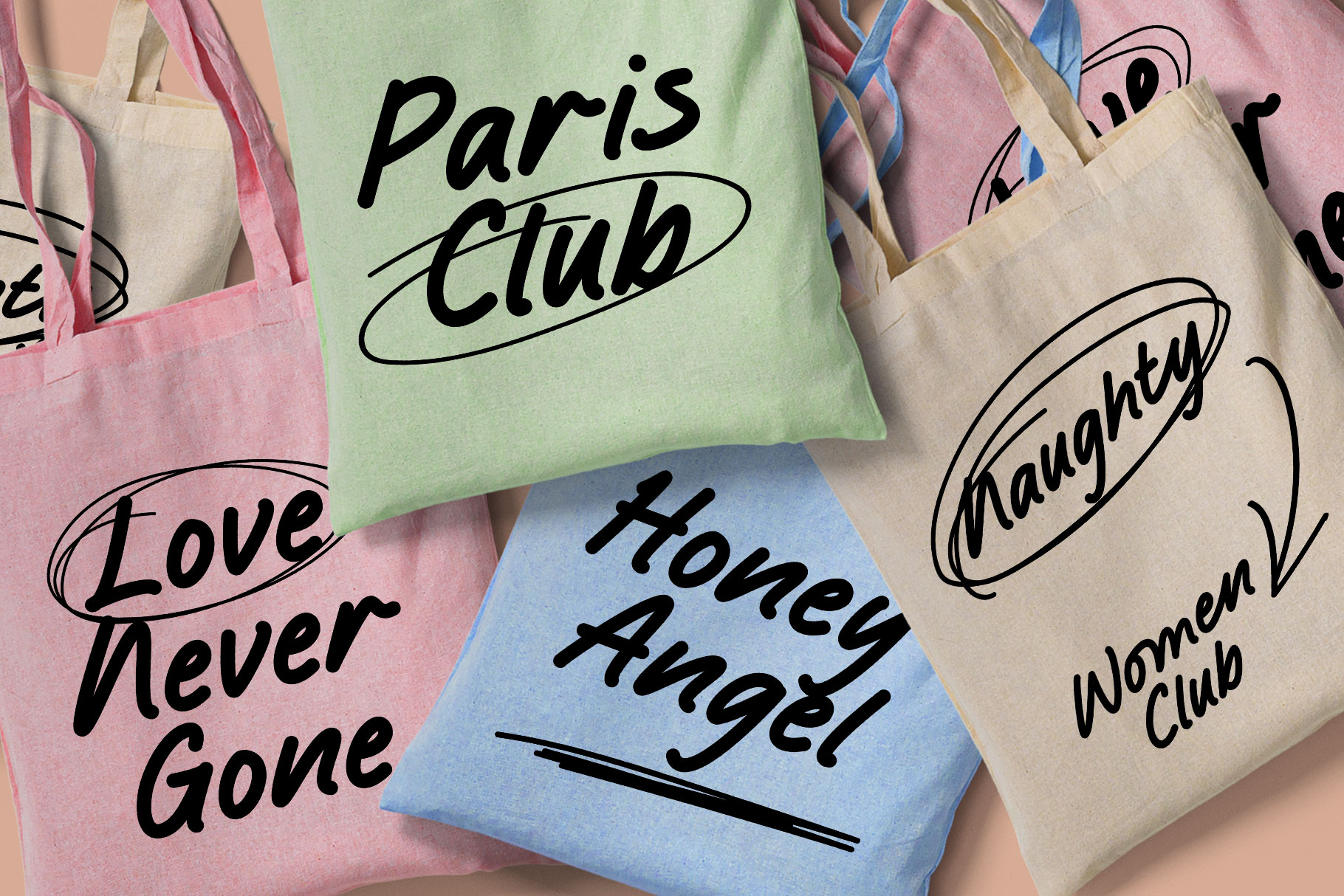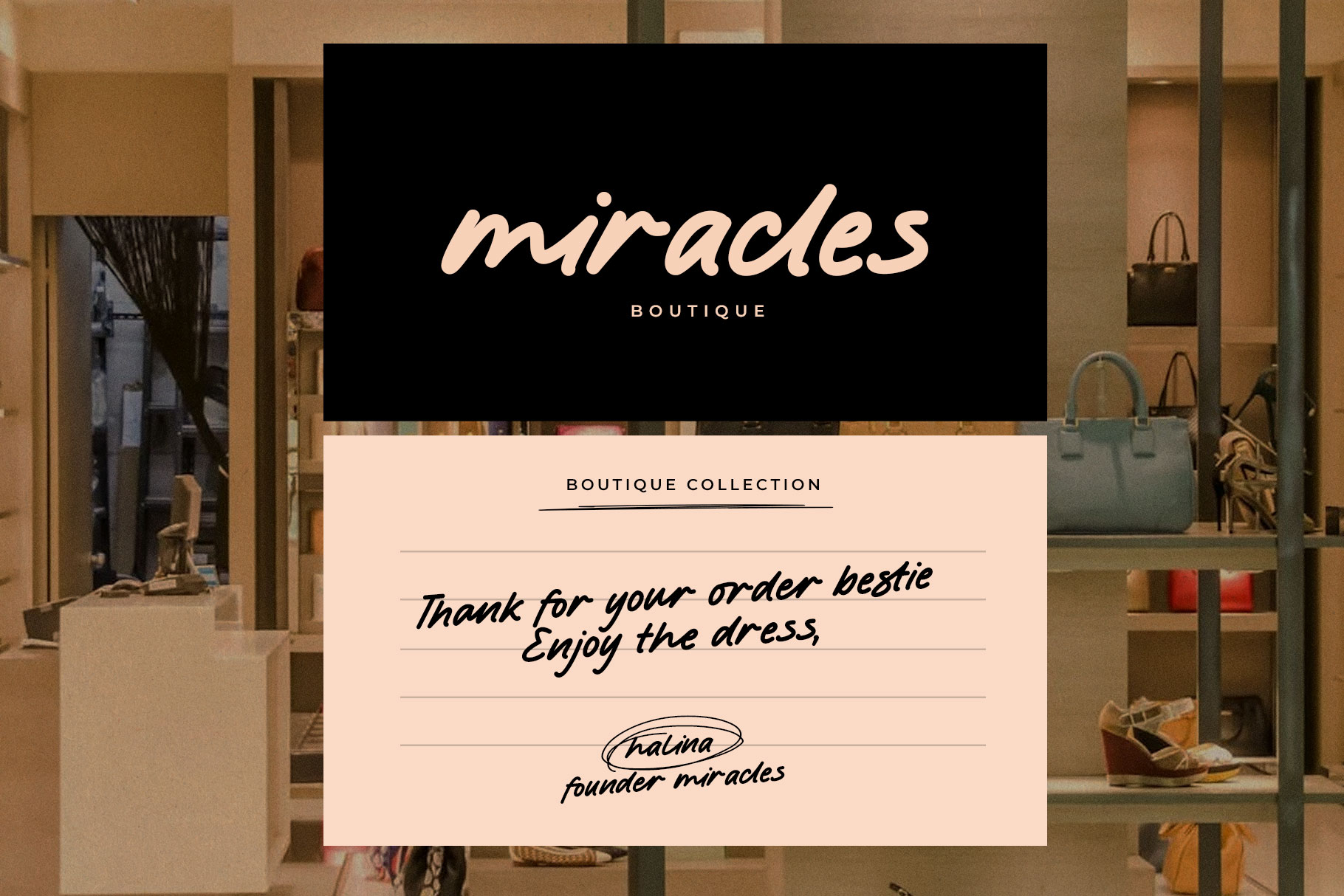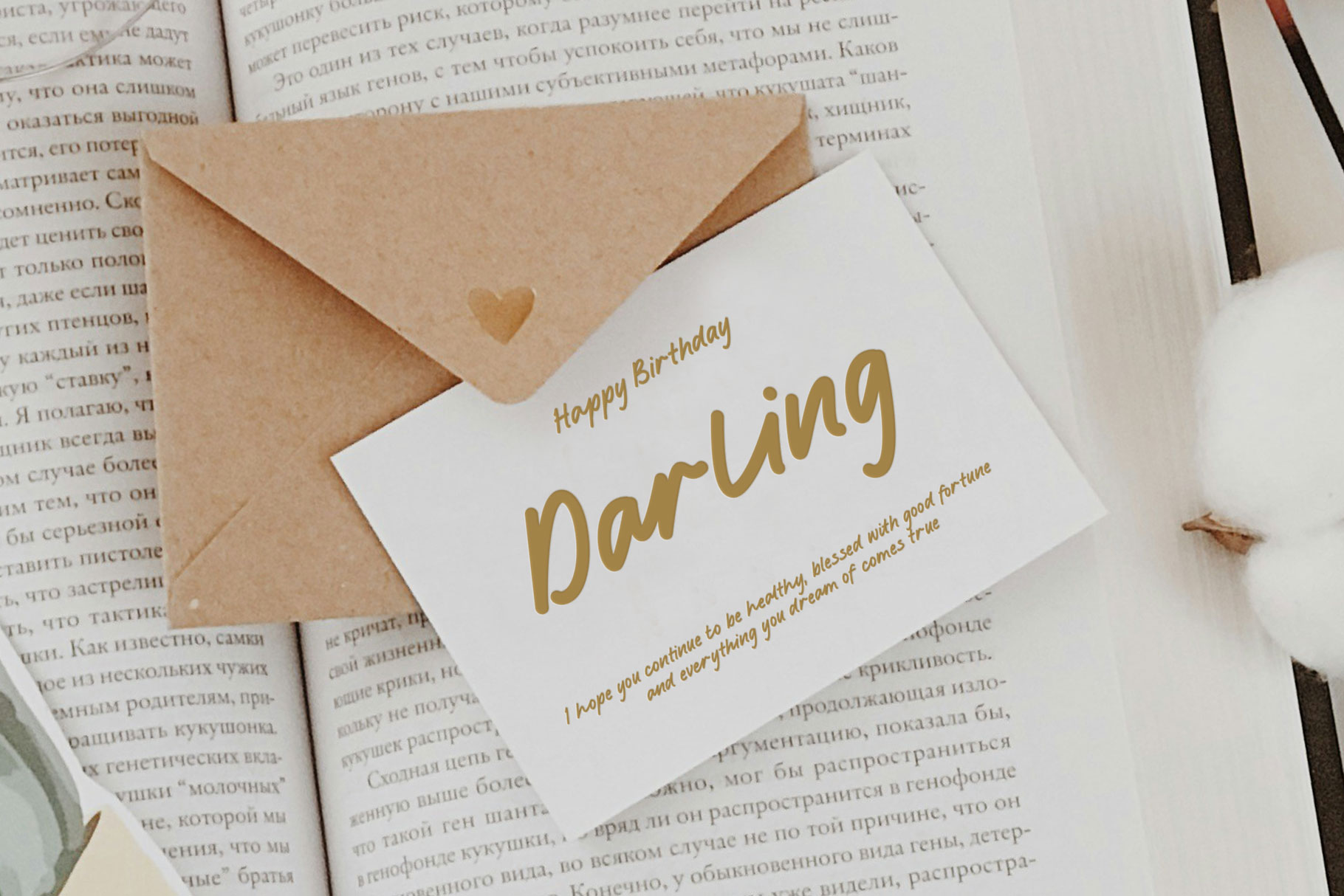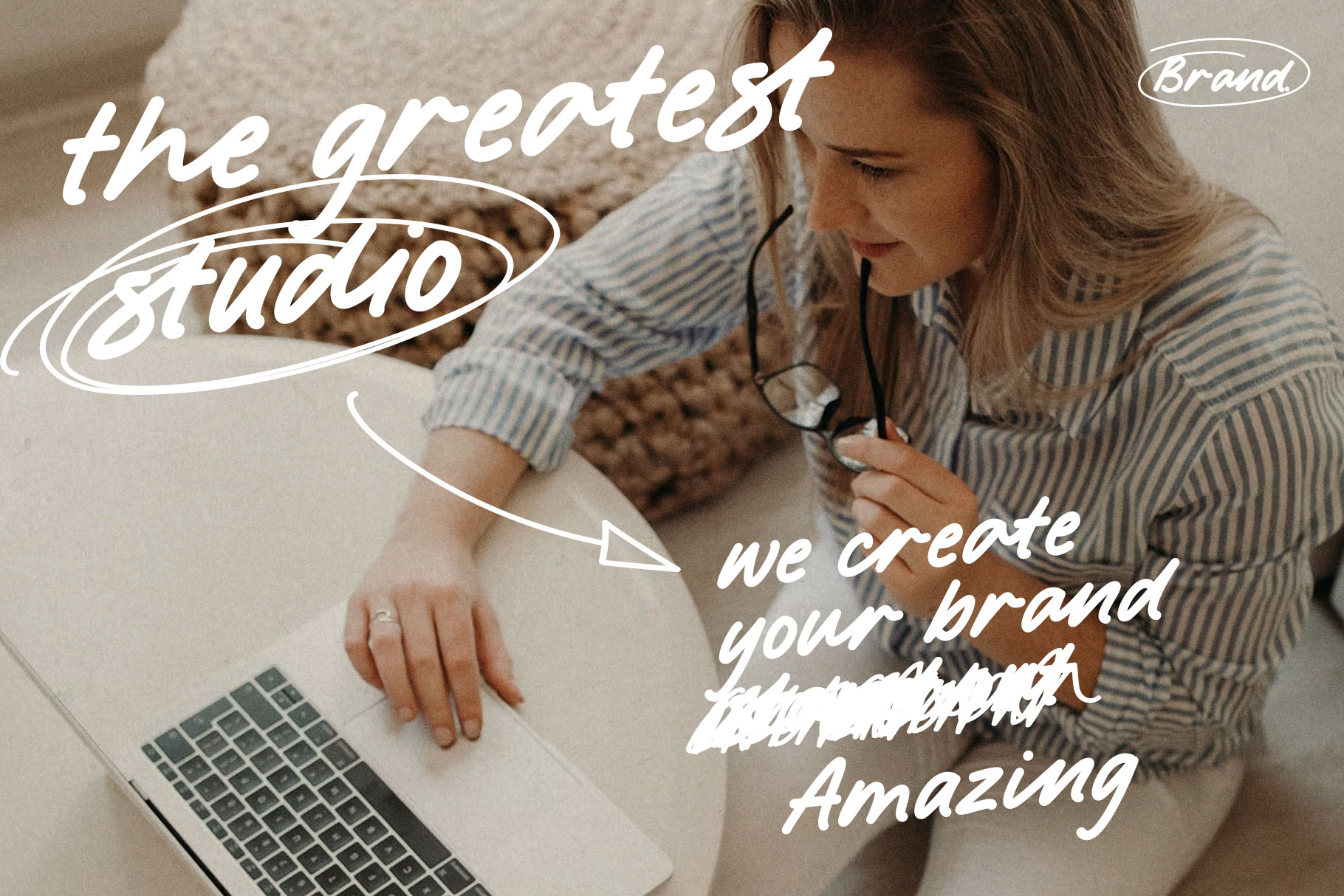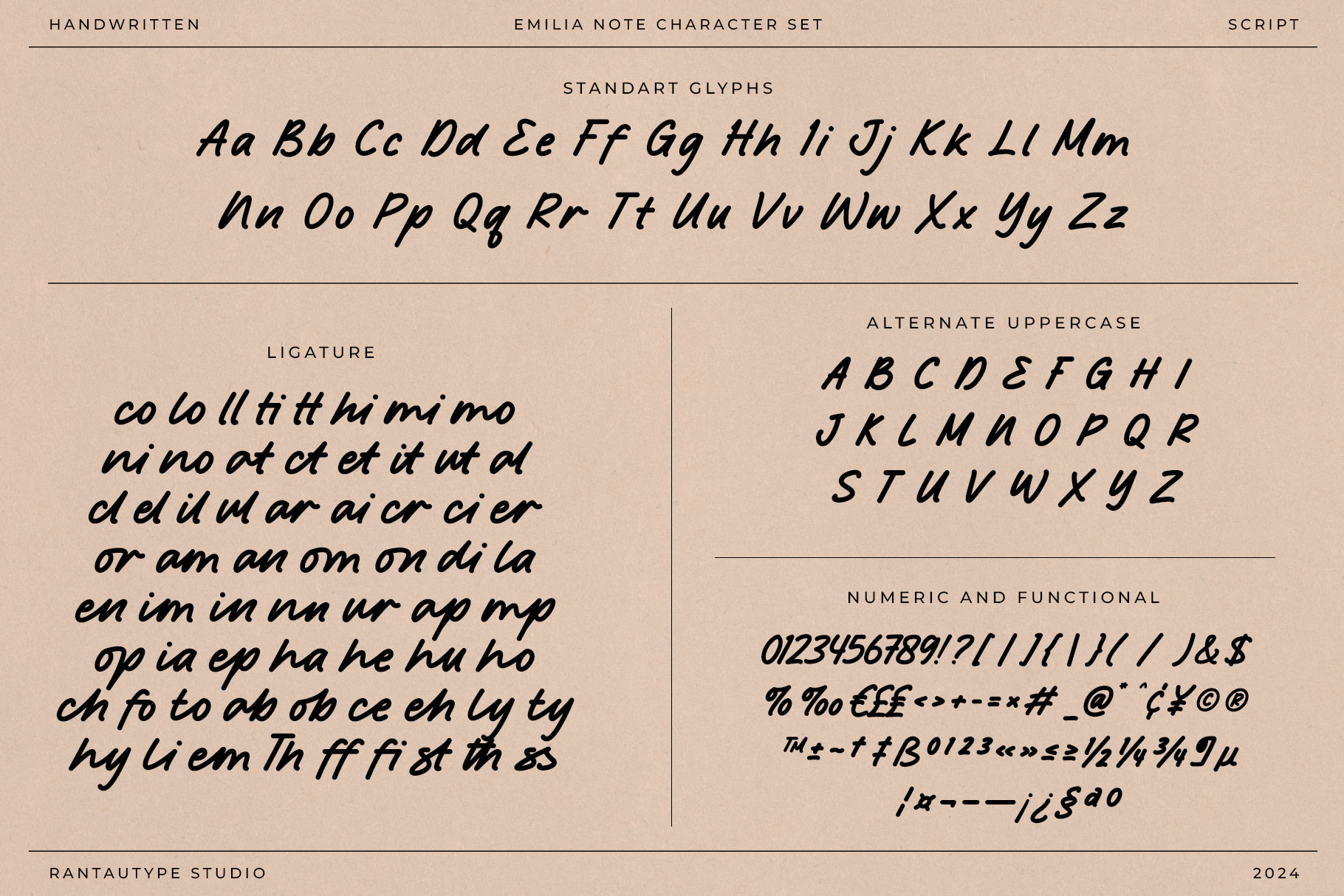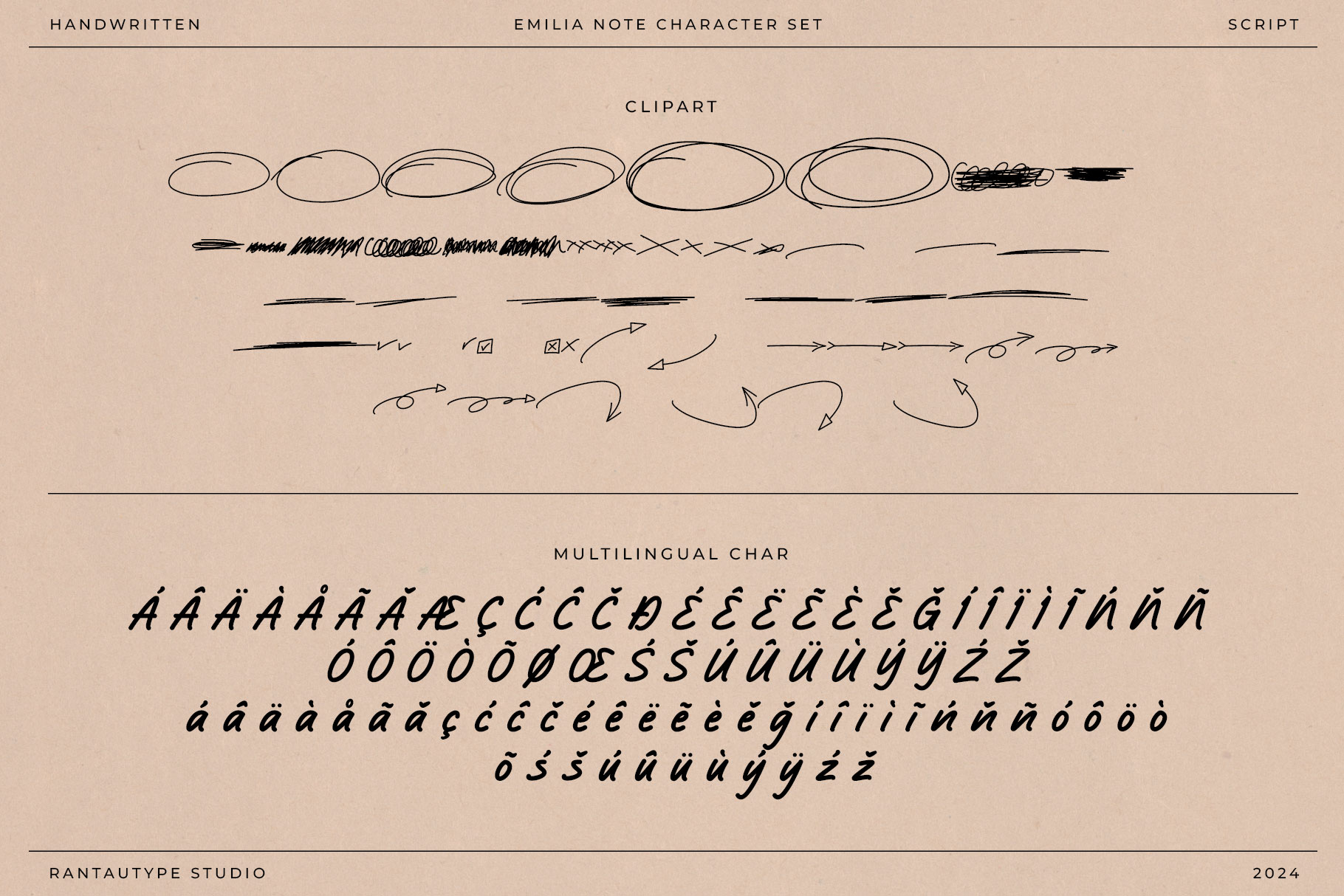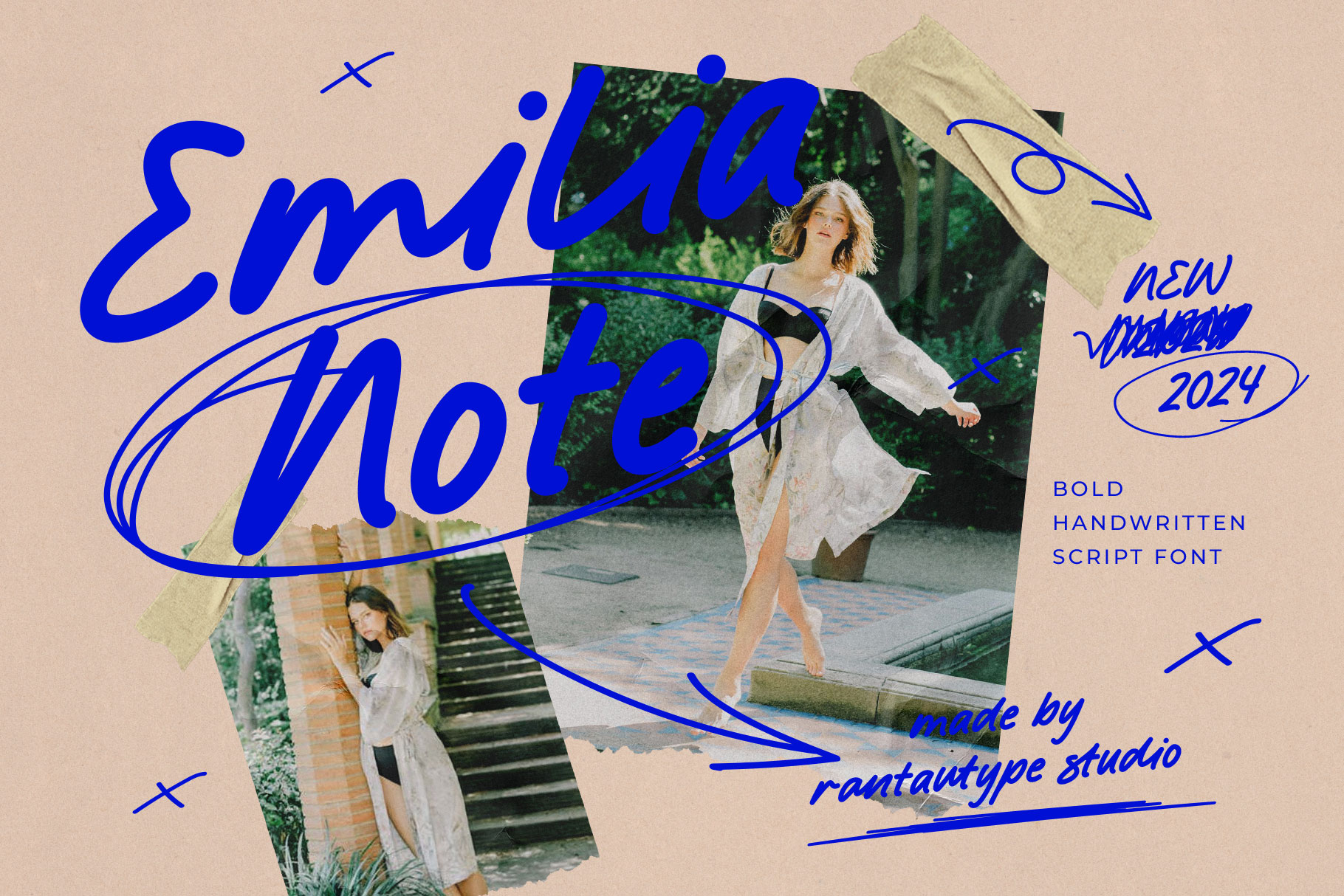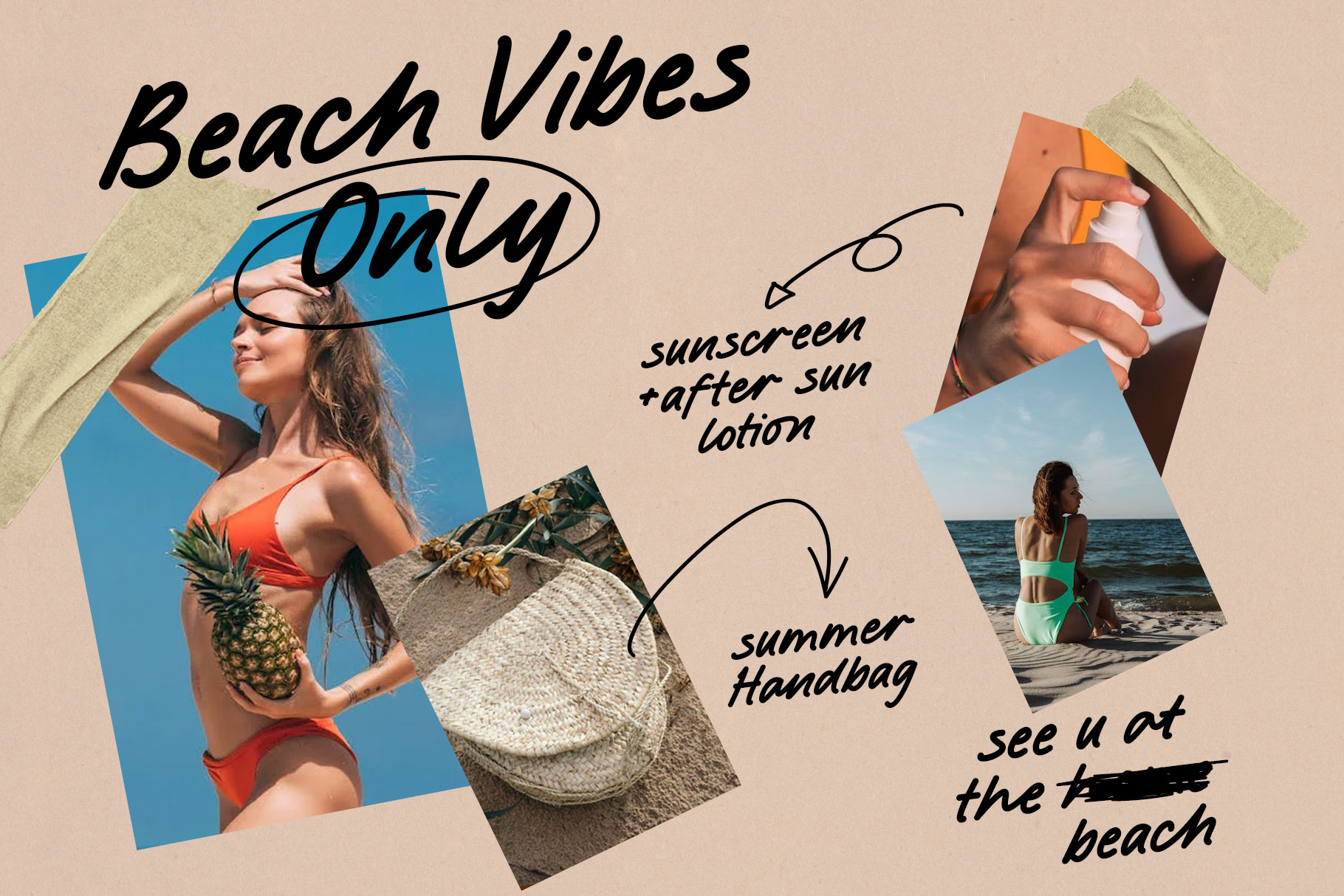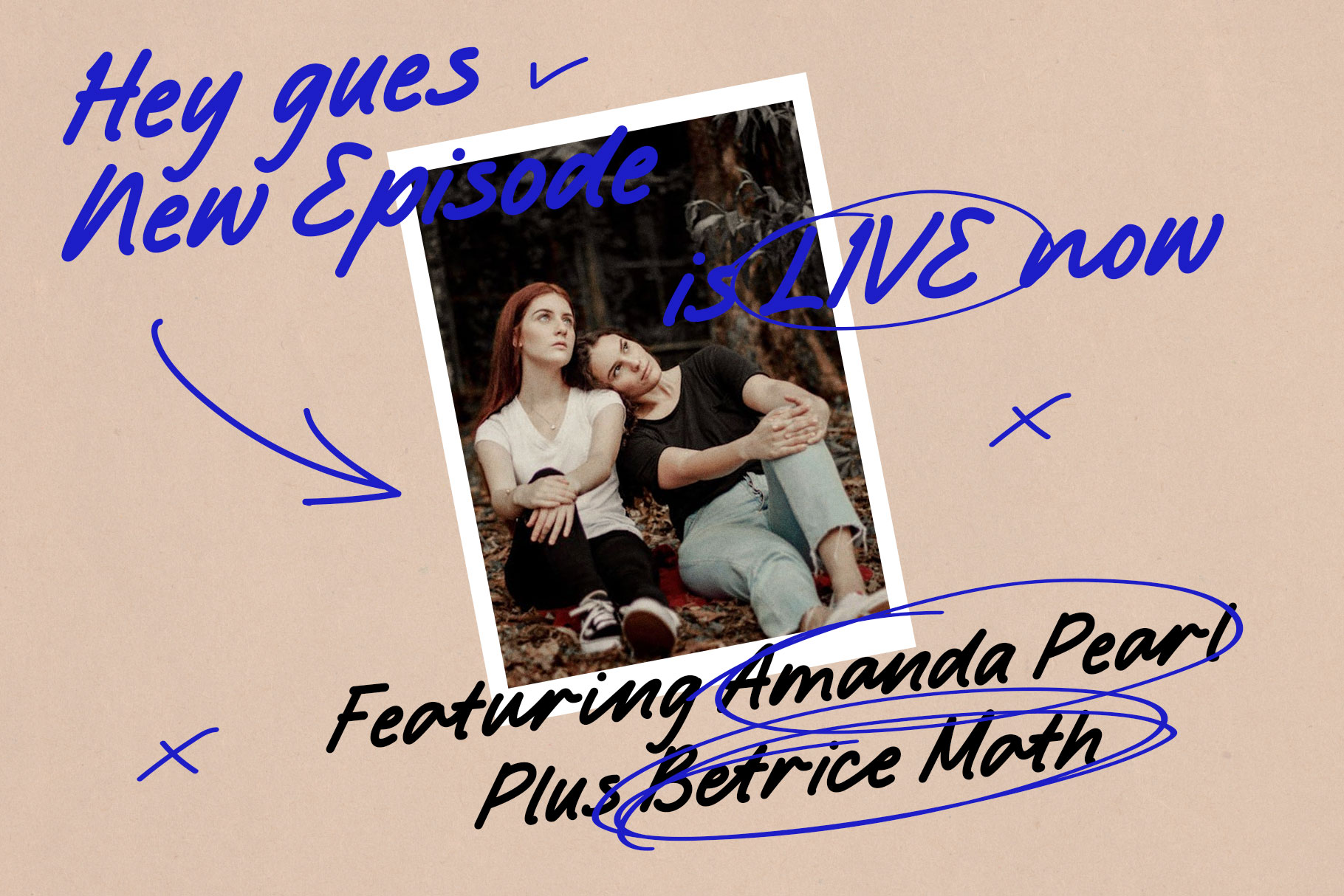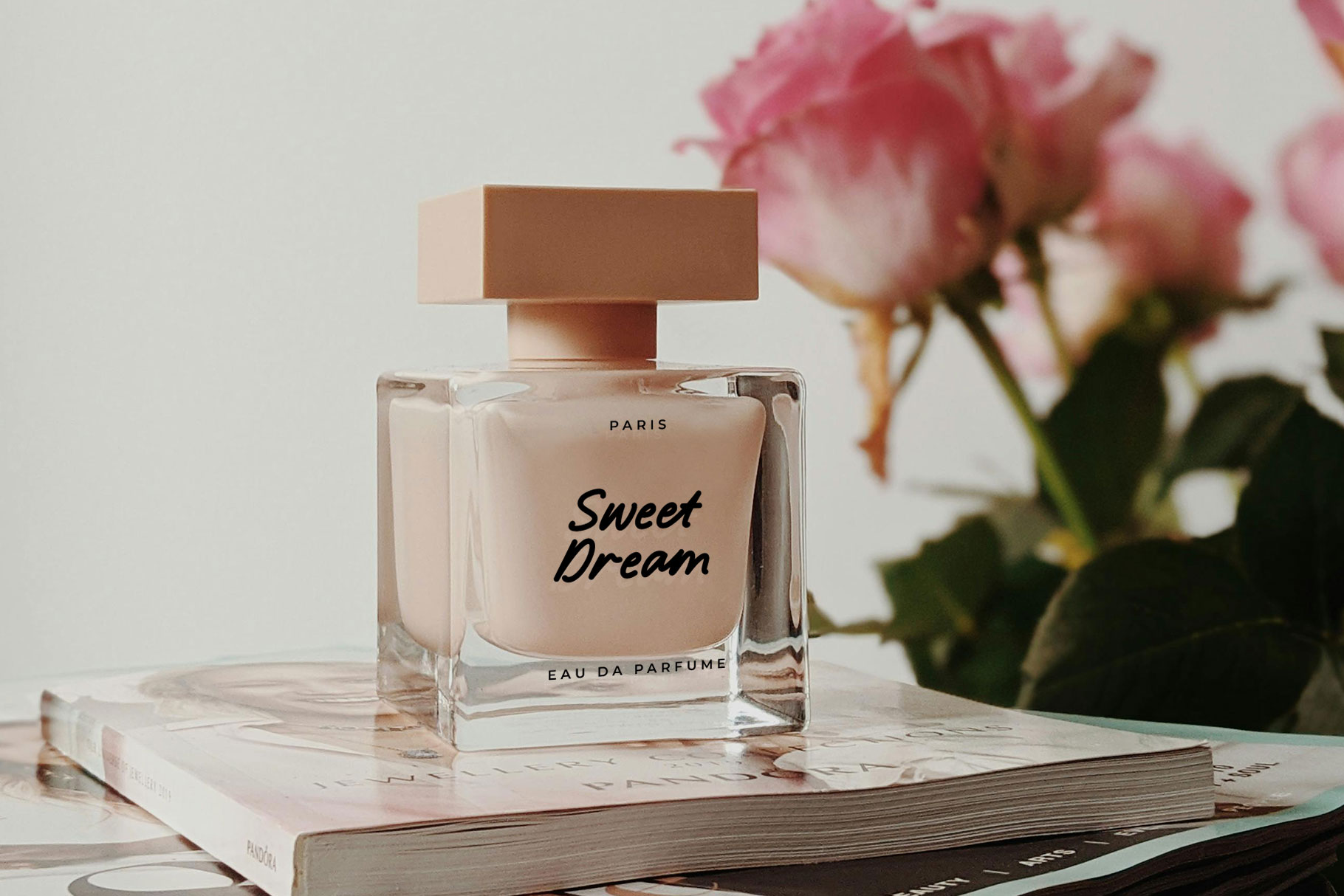
Emilia Note Handwritten Font
Emilia Note is bold natural handwriten font made with love by rantautype studio. Emilia Note bring fresh and clean look to your design project . Casbery come with clipart, you can mix and match to make more natural design project.
Emilia Note is a perfectly choice for any creative endeavor, chic, lifestyle design such as logotype, advertisements, watermark on photography, stationery, branding project, display and magazine, invitation, corporate brand, product design, label, business project and many other project with fun touch.